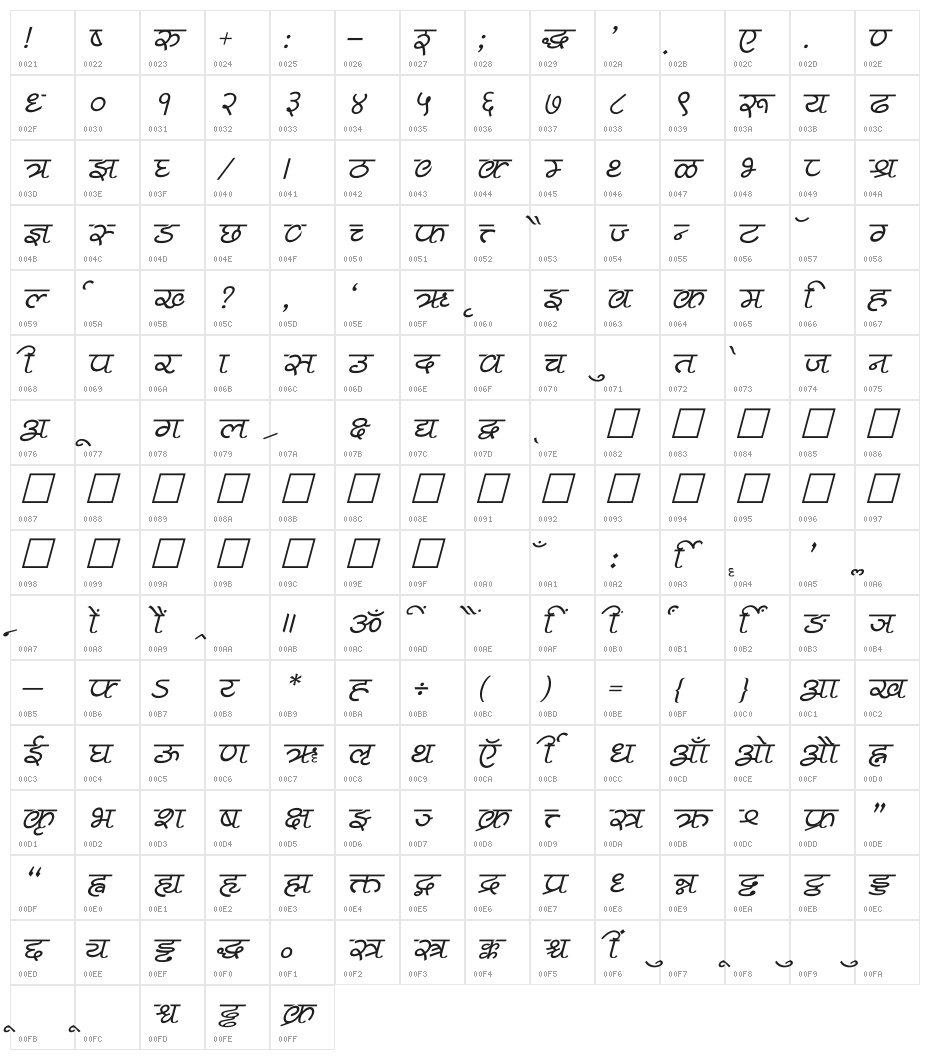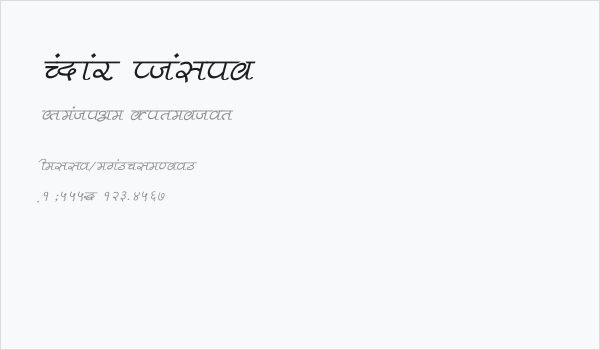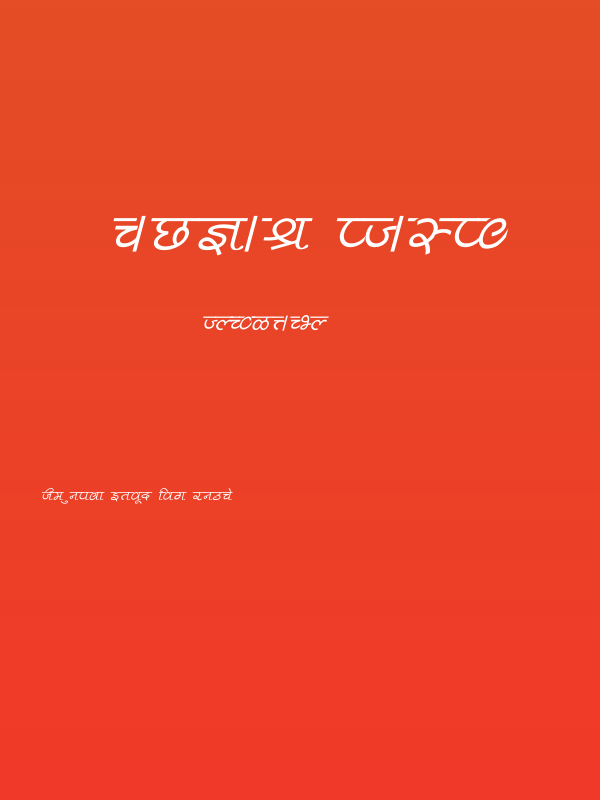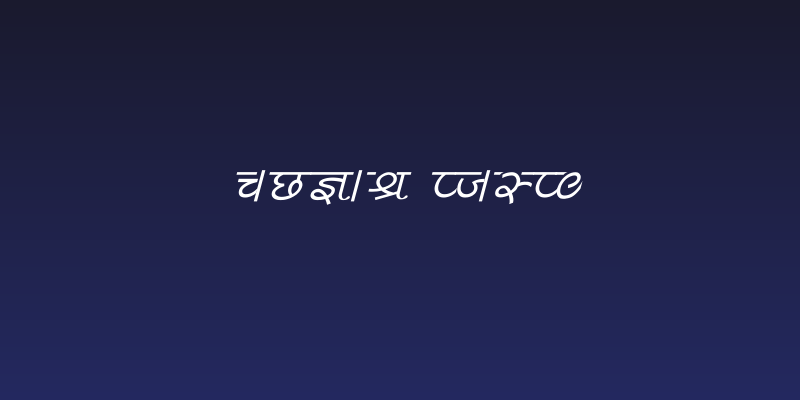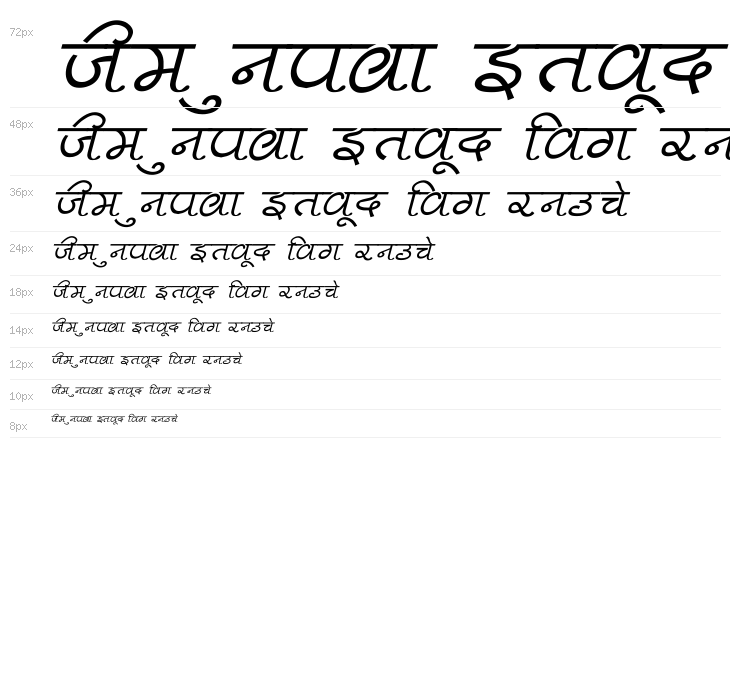
Pankaj Italic Font
Pankaj Italic Description
This font features a flowing, cursive style with a distinct italic slant, giving it a dynamic and elegant appearance. The characters are interconnected with smooth, sweeping strokes that create a sense of movement and fluidity. The script is highly legible, with each letter maintaining a consistent form that enhances readability. The numerals and special characters are designed to complement the letters, maintaining the same graceful curves and slanted orientation. This font is well-suited for projects that require a touch of sophistication and elegance, such as invitations, greeting cards, and branding materials.